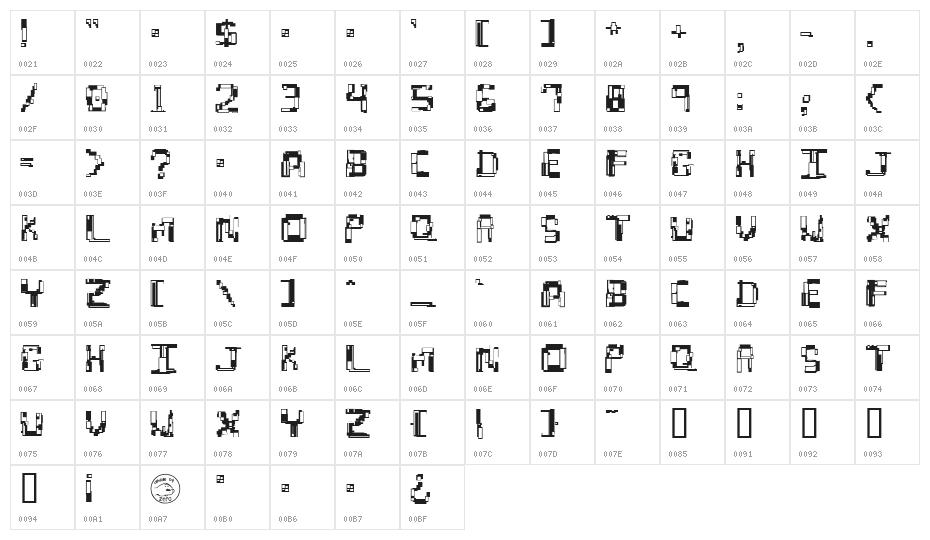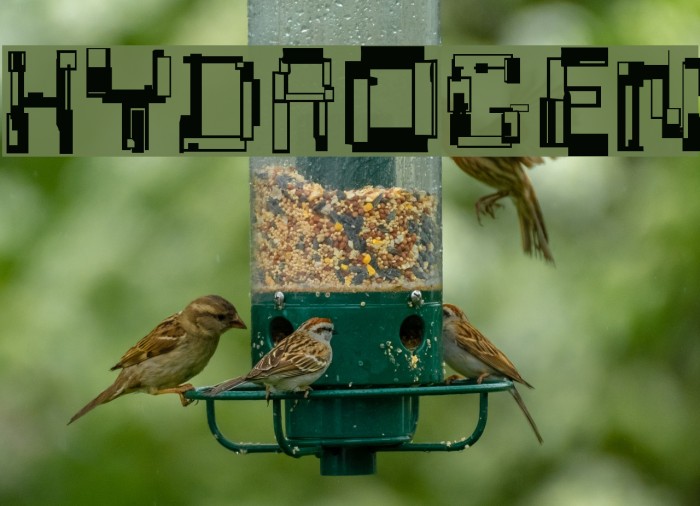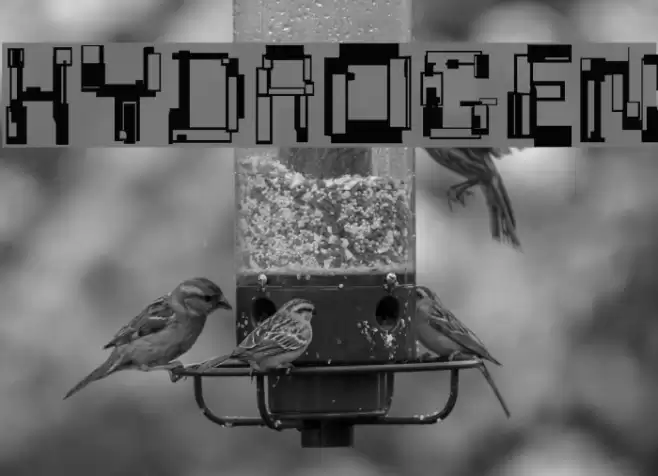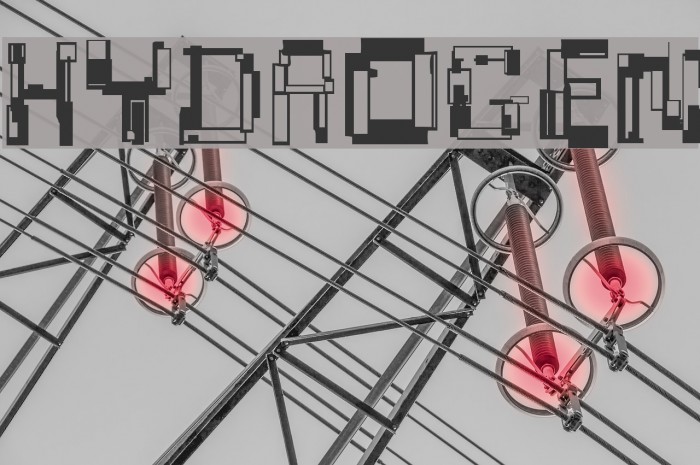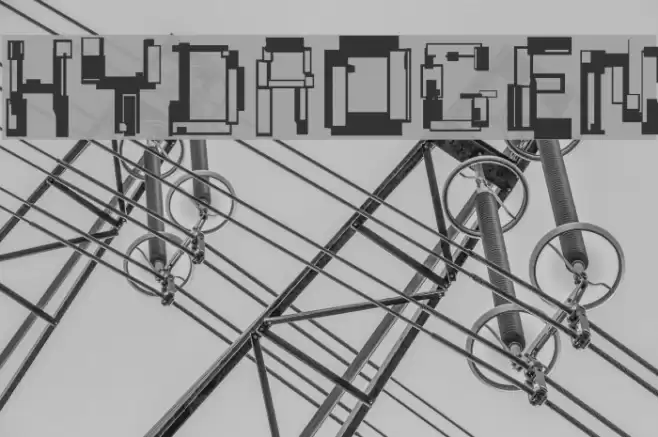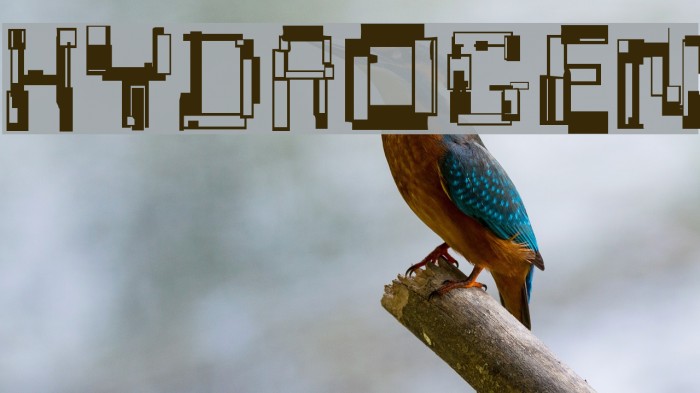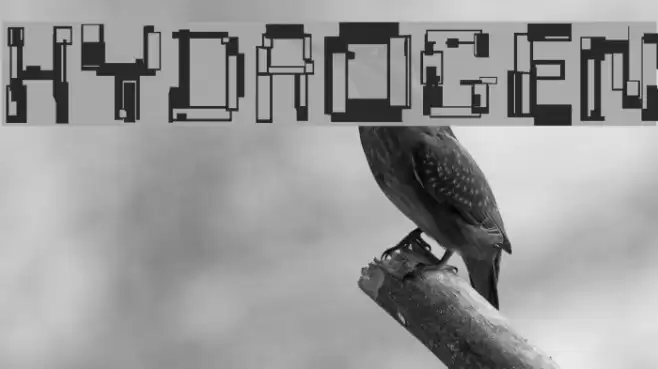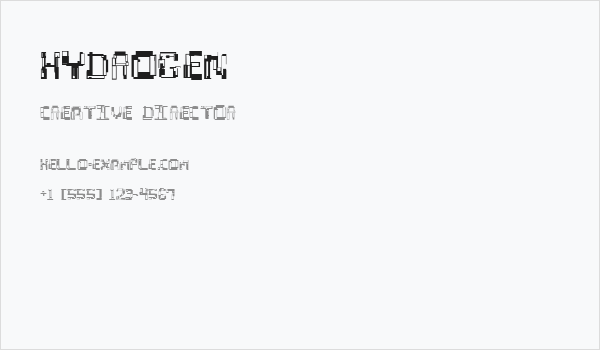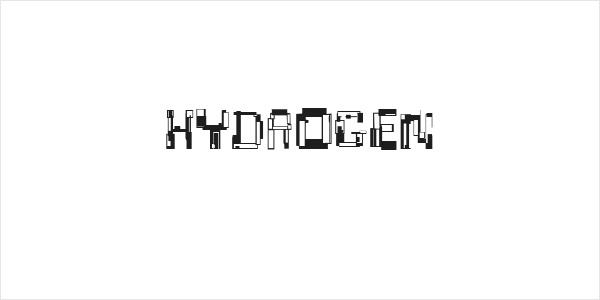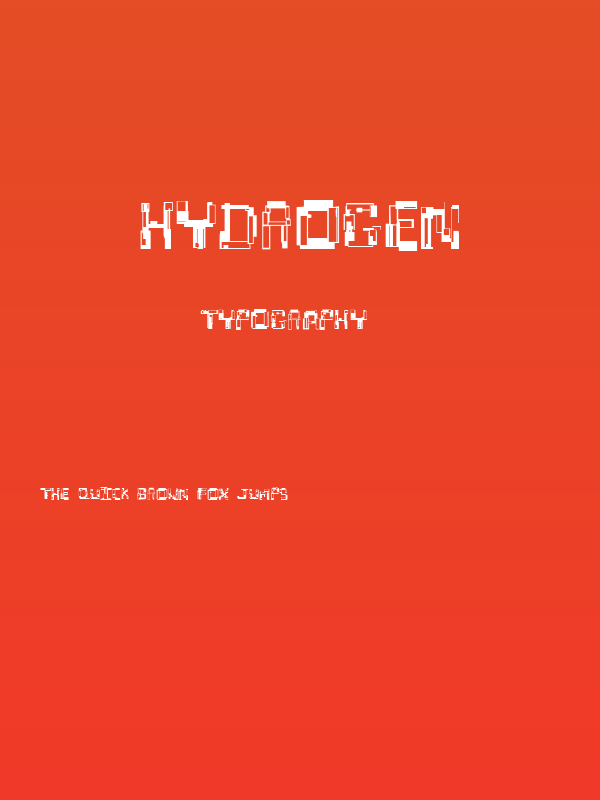
Hydrogen Font
Hydrogen Description
This font features a unique, pixelated design that combines elements of digital and retro aesthetics. Each character is constructed with a blocky, grid-like structure, reminiscent of early computer graphics or video game typography. The uppercase and lowercase letters maintain a consistent geometric form, while the numbers and special characters follow the same stylistic approach. The font's distinctive appearance is characterized by its bold, angular lines and minimal curves, creating a striking visual impact. This design is particularly suited for projects that aim to evoke a sense of nostalgia or a futuristic, tech-inspired theme.
| Proposed Projects | Ideal for video game graphics, tech-themed posters, retro digital art, and branding for technology companies. |